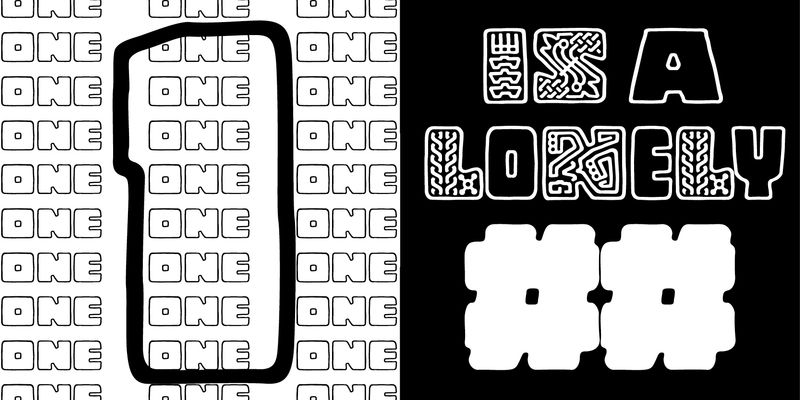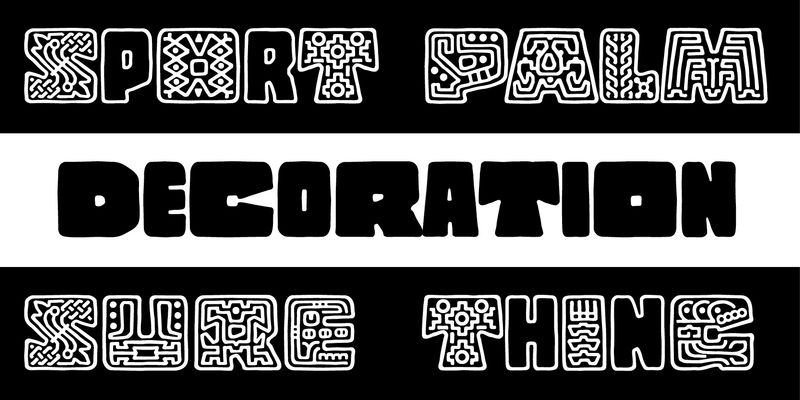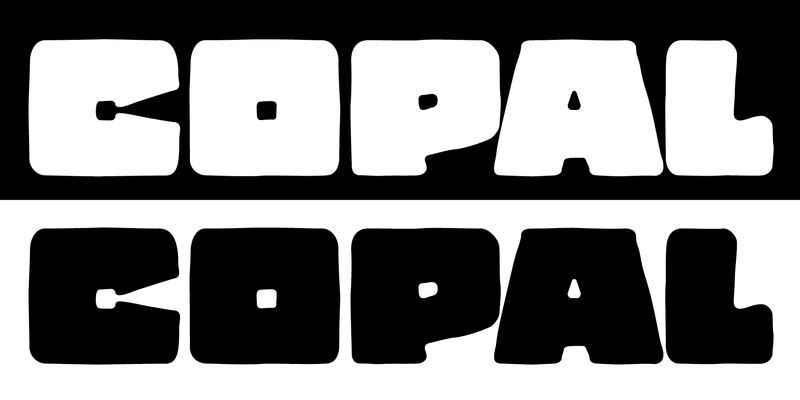
Inspired by the carvings on meso-American monuments, David Lemon of Adobe’s type staff created Copal. It’s named after a resin that was burned as incense by ancient cultures and which is used today as a binding agent in printer’s inks and varnishes. The fonts in Copal can be used individually or combined to achieve chromatic effects. Try the decorated letters in headlines when you’re in need of a burst of primitive energy.